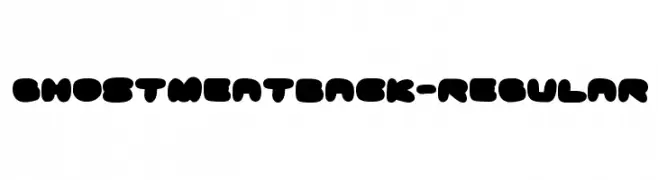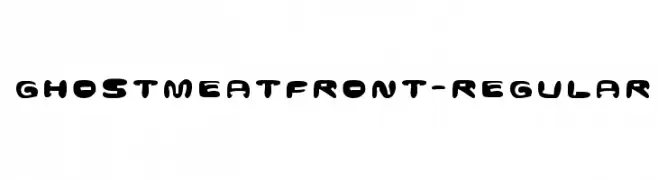
( Typodermic Fonts - Ray Larabie - www.typodermicfonts.com/ )
A bold, playful font with rounded, blob-like characters.
( Typodermic Fonts - Ray Larabie - www.typodermicfonts.com/ )
A playful, bold font with rounded edges and a whimsical design.